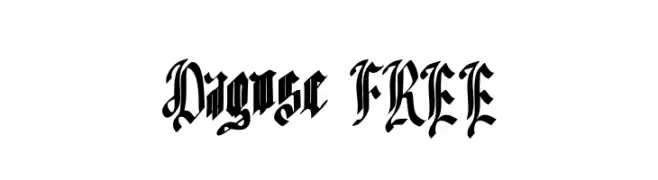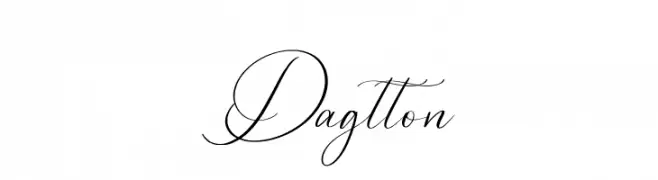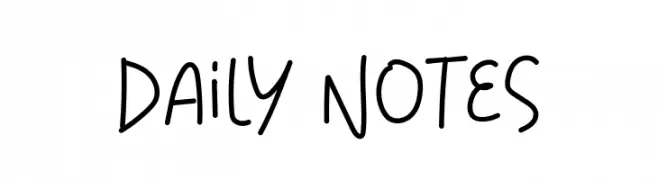
A lively, modern handwritten font with smooth, fluid strokes.
A charming, elegant handwritten font with fluid, continuous strokes.
A bold, graffiti-style font with a three-dimensional effect and urban flair.
A playful, bold font with dotted patterns and irregular shapes, perfect for creative projects.
A mystical, rune-like font with angular shapes and intricate design.
A mystical, 3D decorative font with angular, rune-like characters.
A mystical, 3D italic font with bold, angular lines and a magical aesthetic.
A mystical, angular font with a handwritten, magical script style.
A bold, mystical font with angular, rune-like characters and a leftward slant.
A bold, dripping font perfect for eerie and spooky designs.
A bold, elegant script font with flowing, interconnected characters.
A playful, rounded font with bold, thick strokes and a cartoonish style.
A bold, expressive script font with fluid, connected letterforms.
A playful, handwritten font with smooth, fluid strokes and a casual style.
A dynamic and fluid script font with elegant, flowing letterforms.
A bold, decorative font with a 3D effect and star embellishments.
A bold, handwritten font with a playful and energetic style.
A bold, brush-style font with dynamic, energetic strokes.
A playful and elegant script font with flowing, cursive letterforms.
A bold, expressive handwritten font with a playful, artistic style.
A bold, brush-style font with dynamic, artistic strokes.
A bold, cursive script font with dynamic, flowing strokes.
A playful, handwritten font with a lively and informal style.
A playful, bold font with rounded strokes and whimsical shapes.
An elegant, cursive font with smooth, flowing strokes.
A bold, expressive handwritten font with dynamic curves.
A bold, brush-style font with dynamic and playful strokes.
An elegant script font with flowing, interconnected letters and high contrast strokes.
An elegant script font with flowing, cursive letters and high contrast strokes.
An elegant, cursive font with a handwritten feel and graceful flow.
An elegant, flowing script font with smooth, cursive strokes.
A bold, handwritten font with a lively and dynamic style.
A bold, flowing script font with elegant curves and smooth strokes.
A bold, expressive script font with interconnected characters and a playful style.